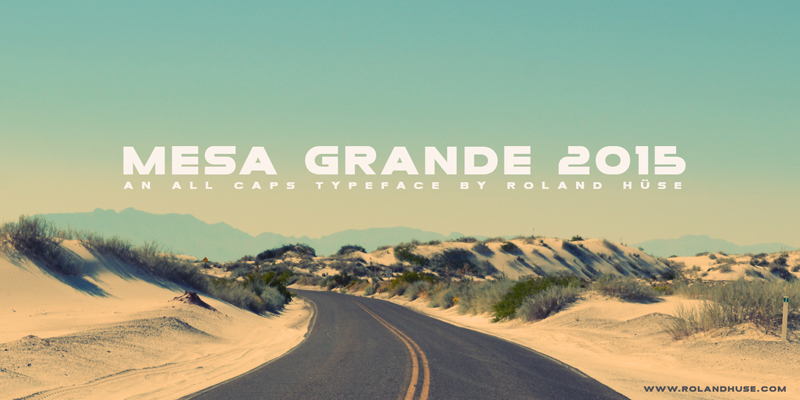
Mesa Grande, a striking sans-serif font designed by Roland Huse Design, captivates with its bold, expanded stance. This distinctive typeface exudes a sense of authority and confidence, its sturdy letterforms commanding attention. The expansive width lends an air of grandeur, while the clean, geometric shapes convey a modern, sophisticated aesthetic. Mesa Grande's balanced proportions and harmonious curves create a visually striking and impactful appearance, making it a compelling choice for a wide range of design applications.
Versatile and adaptable, Mesa Grande shines in headings, logos, and other display contexts that require a strong, distinctive typographic presence. Its bold personality effortlessly elevates branding, editorial layouts, and even digital interfaces, lending a touch of elegance and authority wherever it is applied. With its exceptional legibility and visual impact, Mesa Grande emerges as a compelling font that seamlessly bridges the realms of form and function.